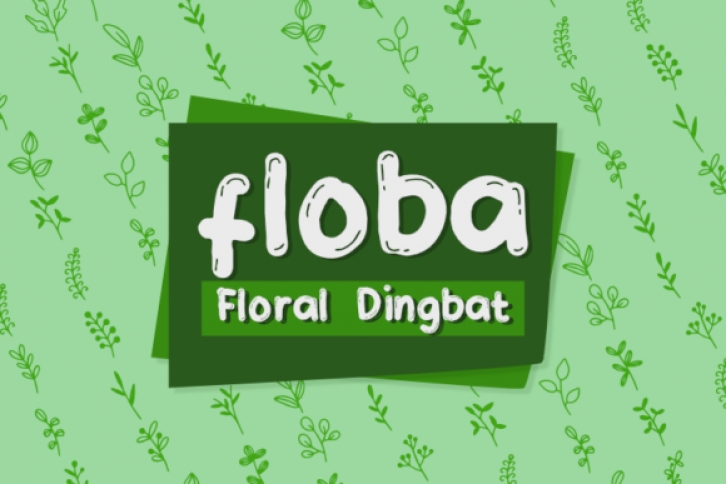
Floba is a sweet, useful and delicate dingbats font. Whether you’re using it for crafting, digital designing, presentations or greeting cards making, it’s perfect!